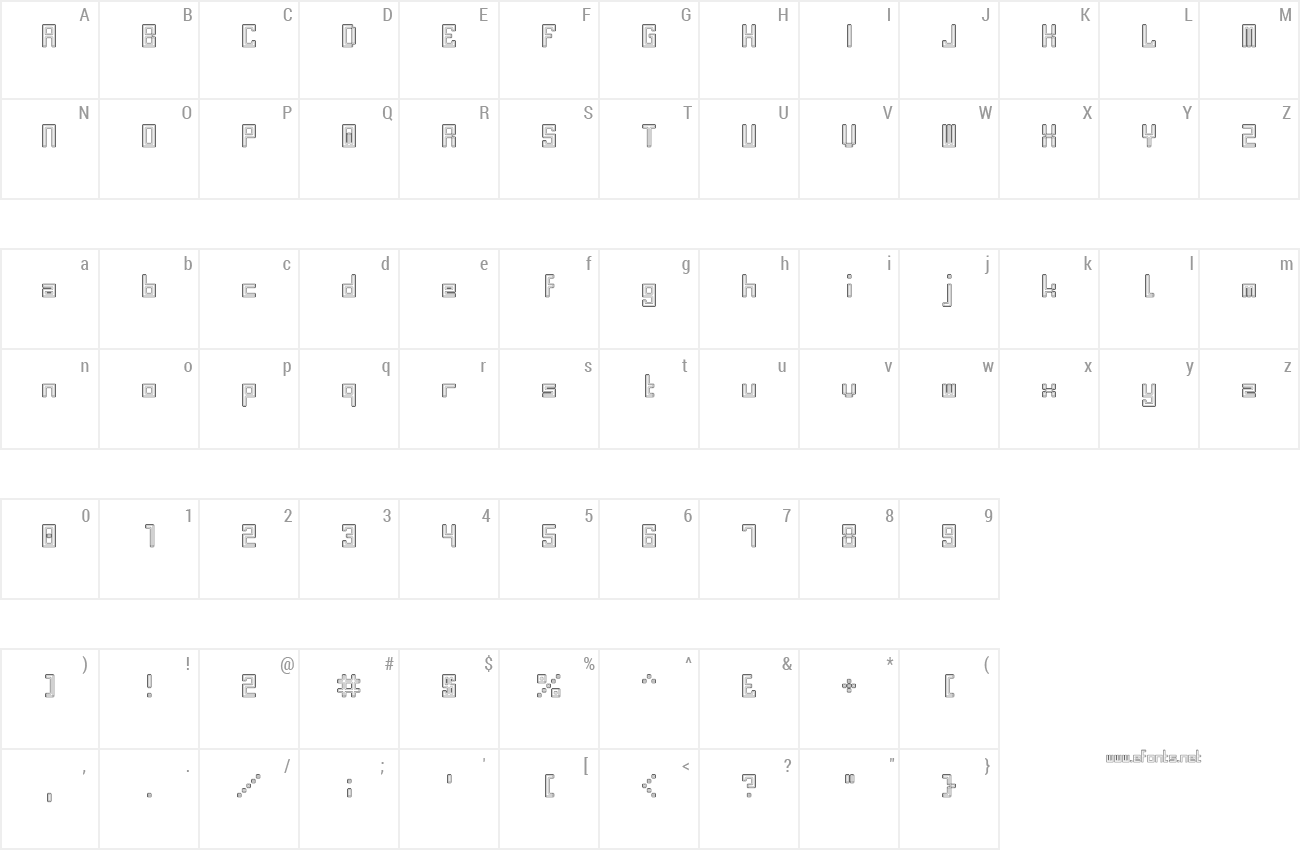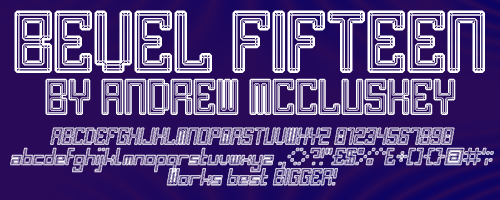
Preview and download Bevel Fifteen Font. Created by NALGames in Techno Various styles with 100% Free license.
Bevellish pixel font. Works best big, or anti-aliased properly when smaller. Free for all use. Notification on use, commercial or otherwise, is not required, but I genuinely love it when you do - so please consider quickly dropping a line! I don't bite, and I won't refuse you permission to use the font regardless of how it's being used. Credit is much of the same - not required, but it makes me smile when people do :) You're also welcome to donate if you like/use the font (PayPal: nal[at]nalgames[dot]com, or just use DaFont's built in Donate link), but again, optional! |